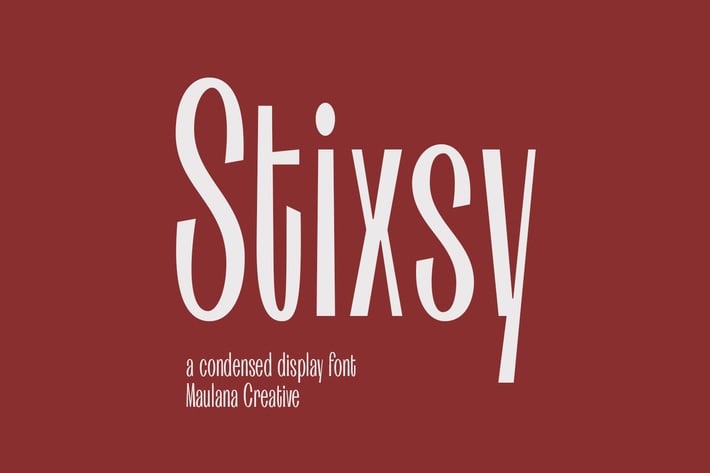
Stixsy Condensed Display Fonts
Stixsy is a condensed humanist sans display font. Regular stroke, fun character with a bit of ligatures. To give you an extra creative work. Stixsy font support multilingual more than 100+ language. This font is good for logo design, Social media, Movie Titles, Books Titles, a short text even a long text letter and good for your secondary text font with script or serif. Make a stunning work with Stixsy font.